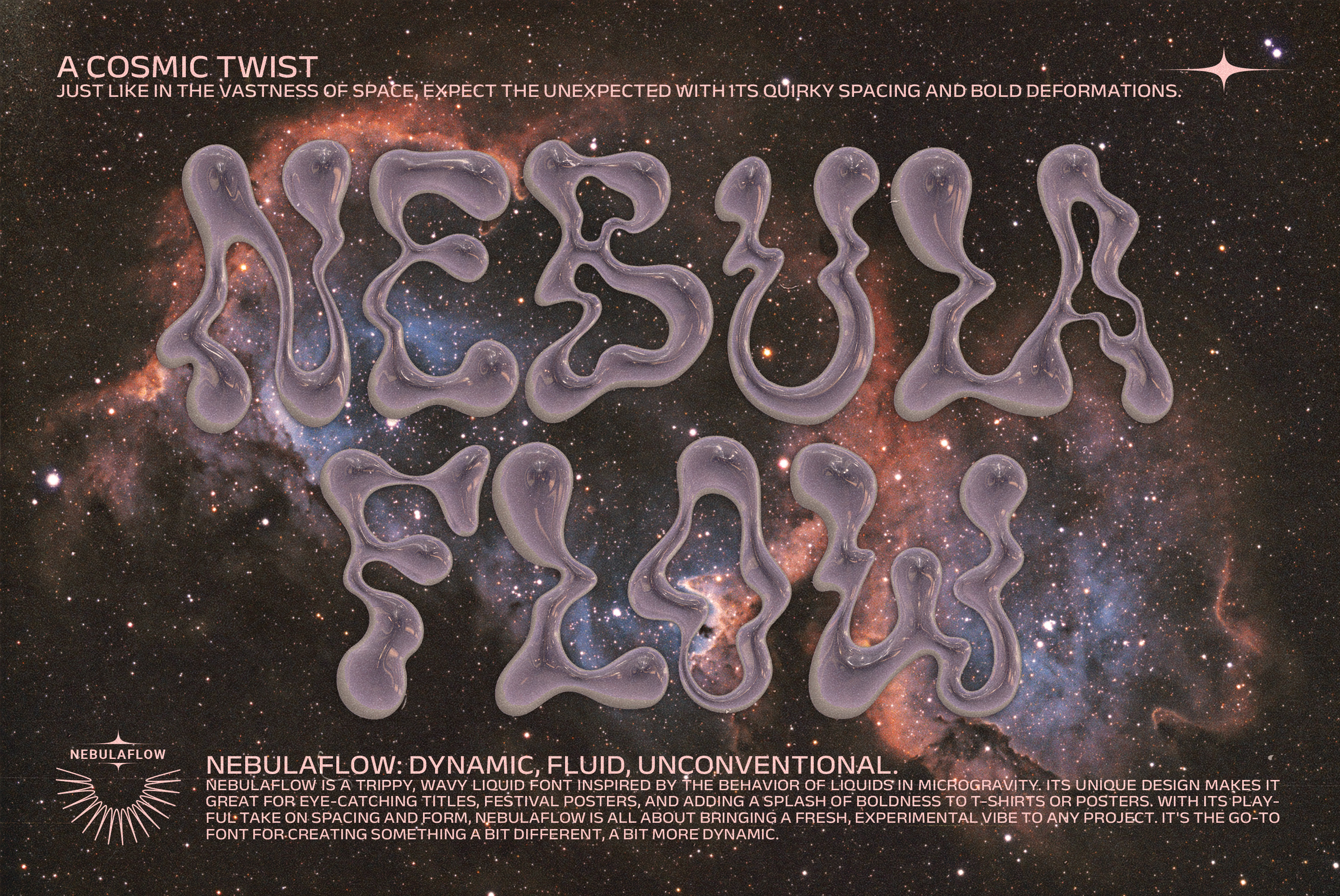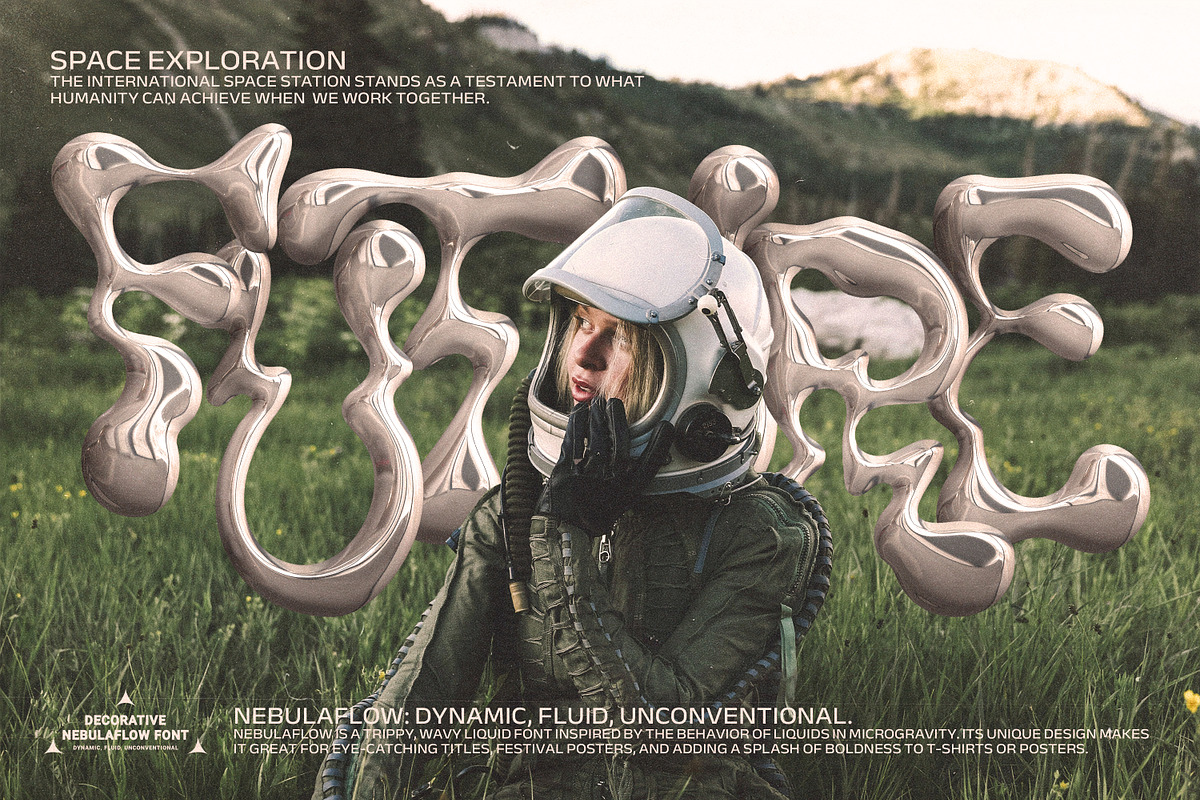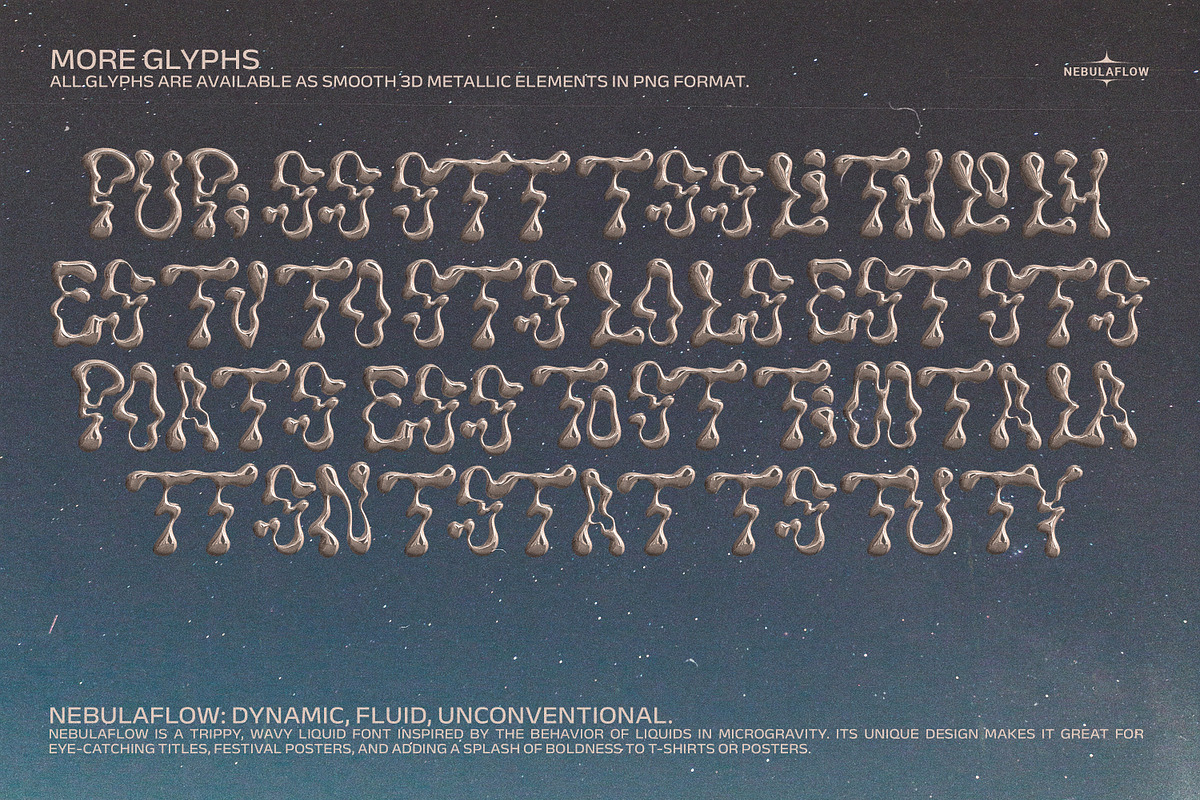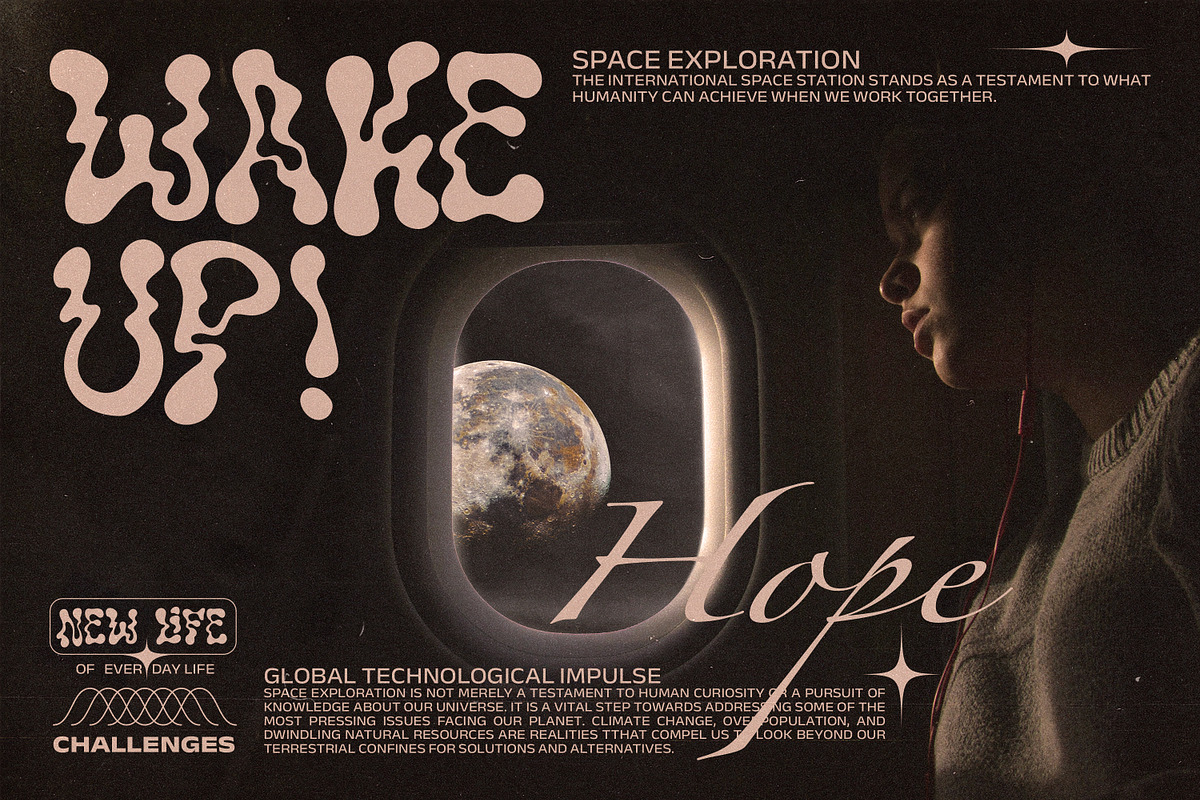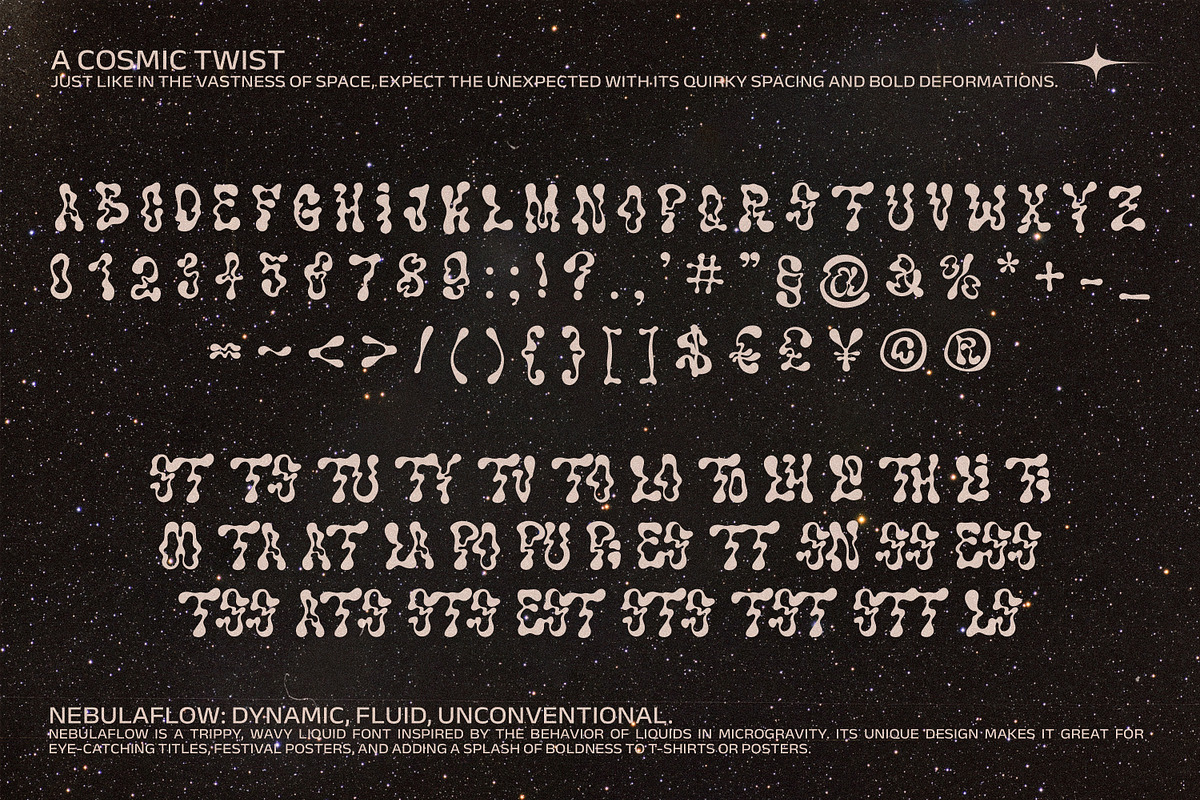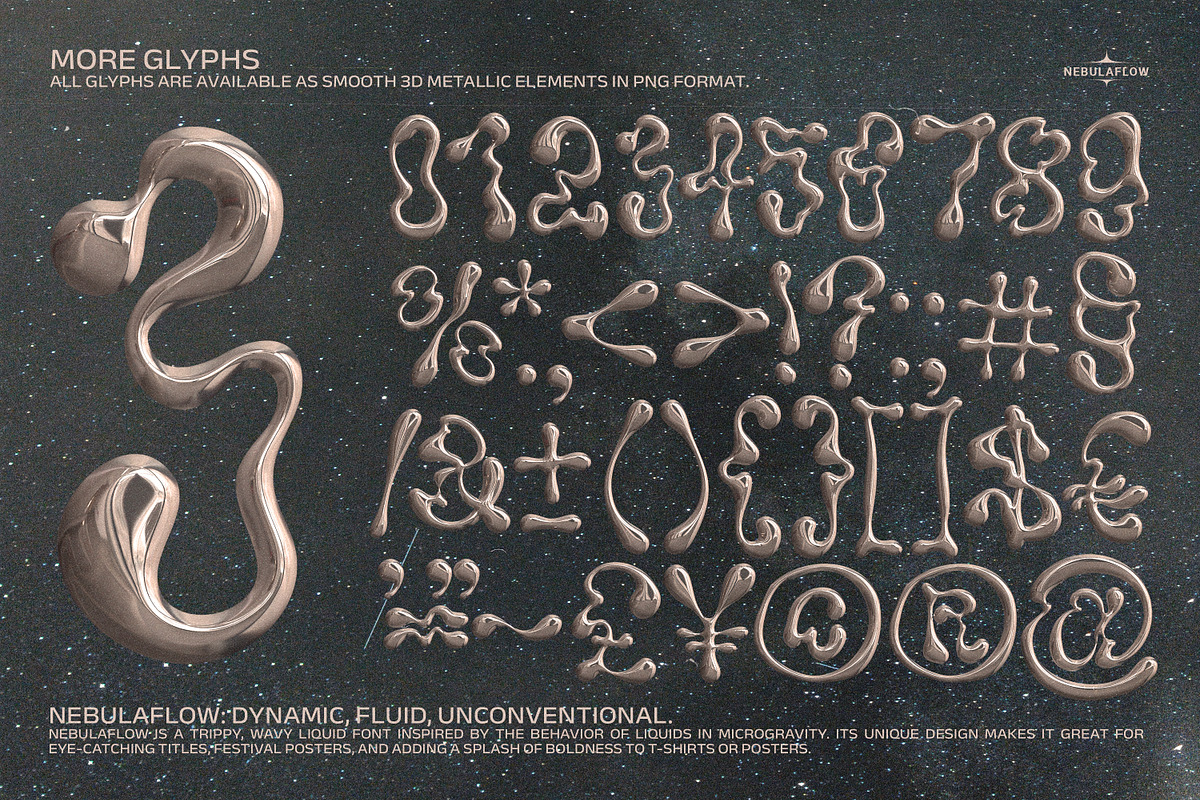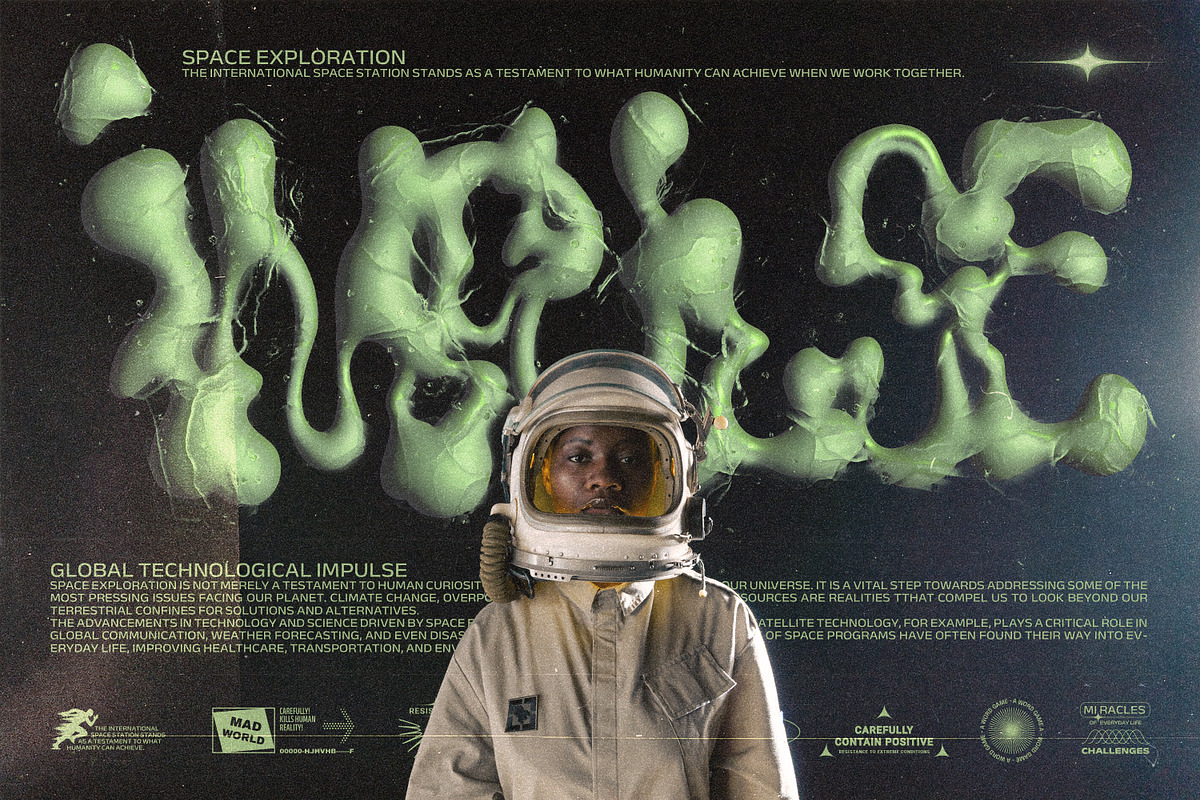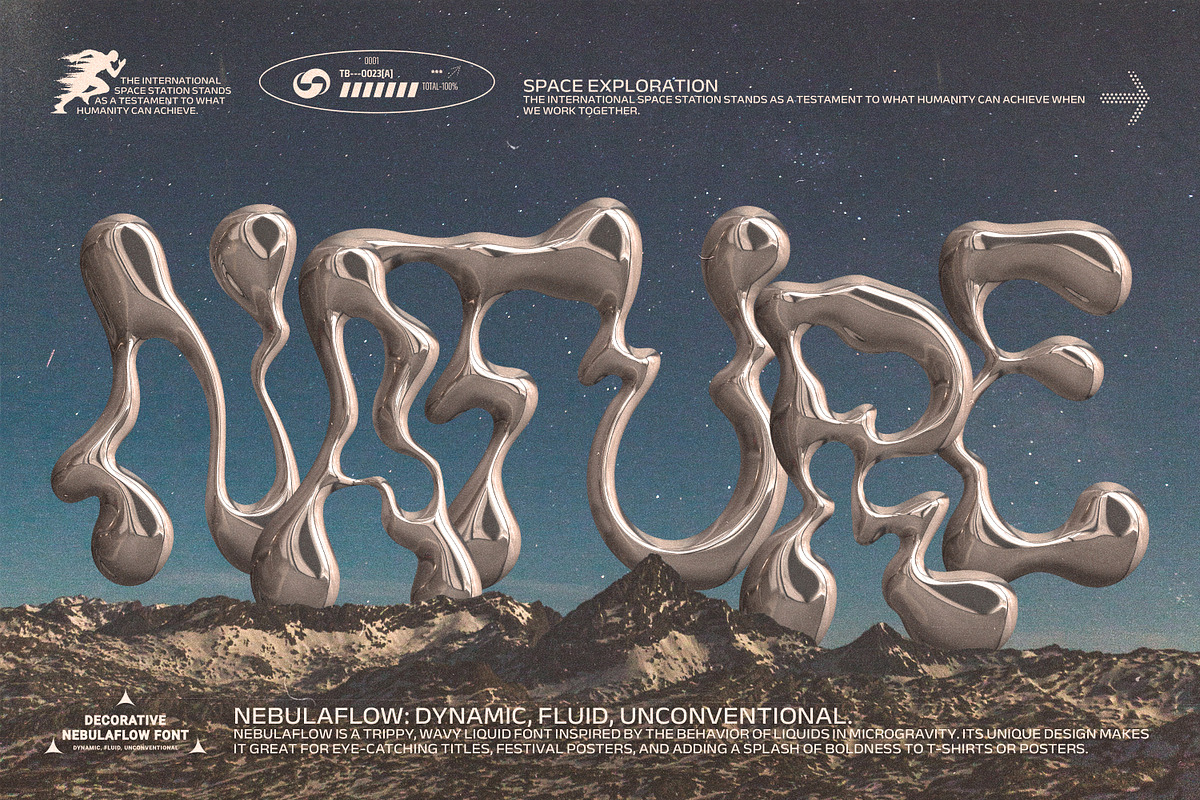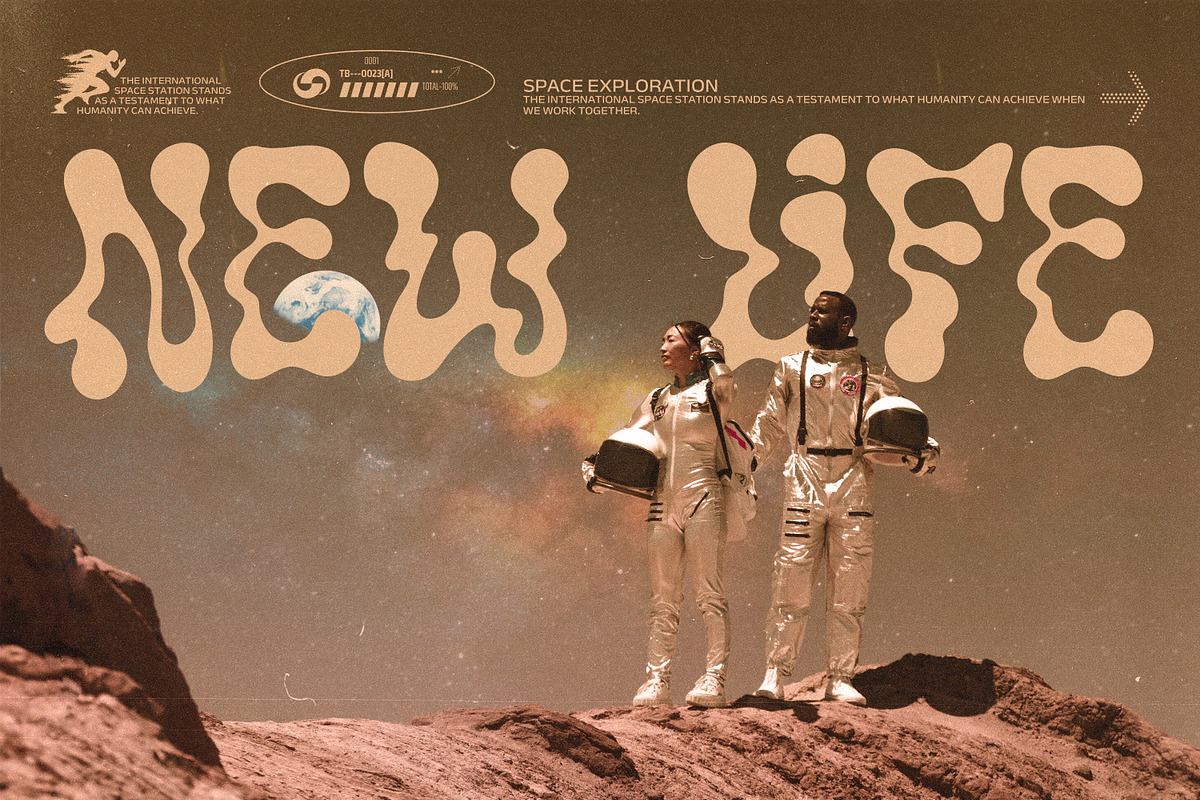
The Nebula Flow Font - Chrome Type
NebulaFlow is a trippy, wavy liquid font inspired by the behavior of liquids in microgravity. Its unique design makes it great for eye-catching titles, festival posters, and adding a splash of boldness to T-shirts or hoodies. With its playful take on spacing and form, NebulaFlow is all about bringing a fresh, experimental vibe to any project. It's the go-to font for creating something a bit different, a bit more dynamic.